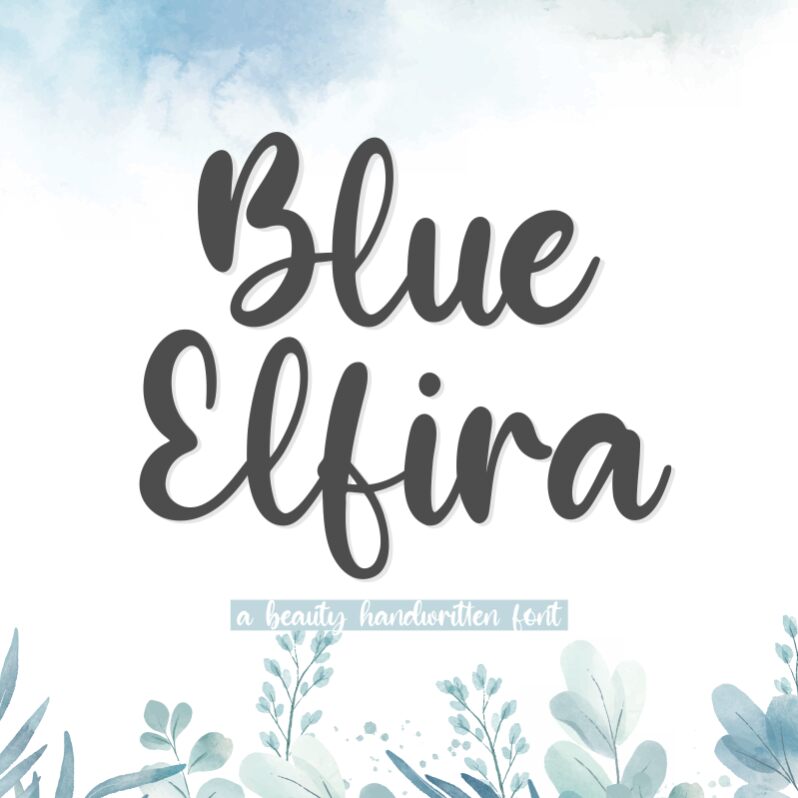
Blue Elfira
Meet Blue Elfira, the charming semi-bold handwritten font designed by Qwrtype Foundry. With its playful and whimsical style, Blue Elfira is perfect for projects looking to add a touch of personality and warmth. This font's semi-bold weight provides just the right amount of weight and balance, making it an excellent choice for headlines, titles, and branding materials. Its flowing strokes also make it ideal for greeting cards, invitations, and other printables that require a touch of elegance. Let Blue Elfira bring your projects to life with its unique charm and flair!